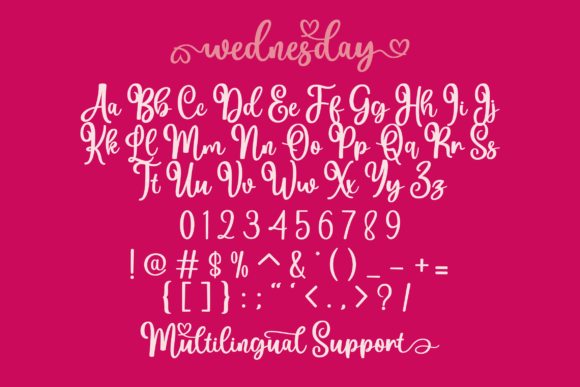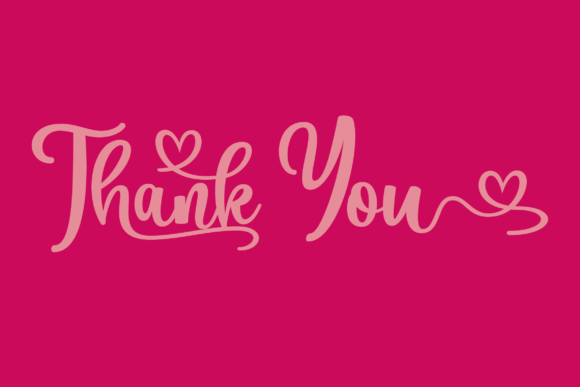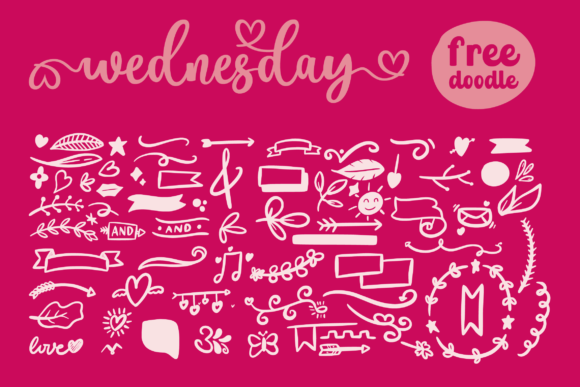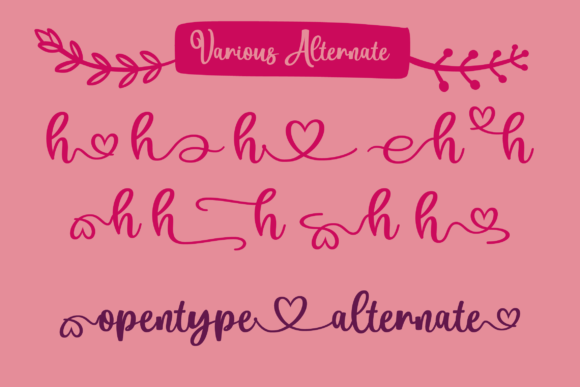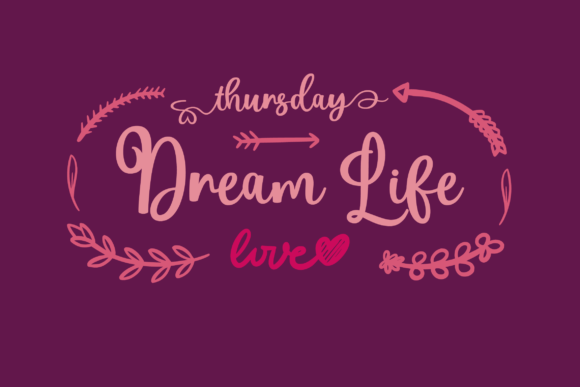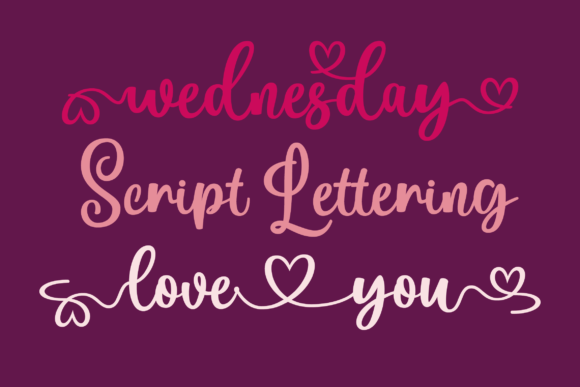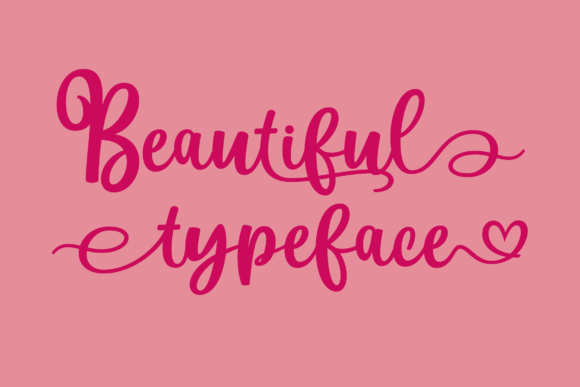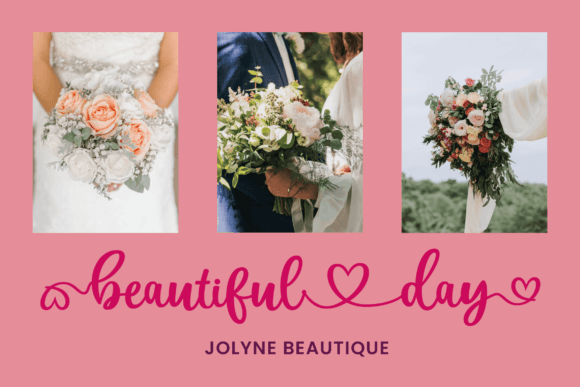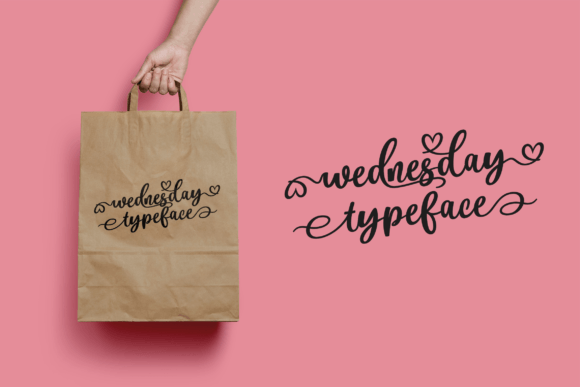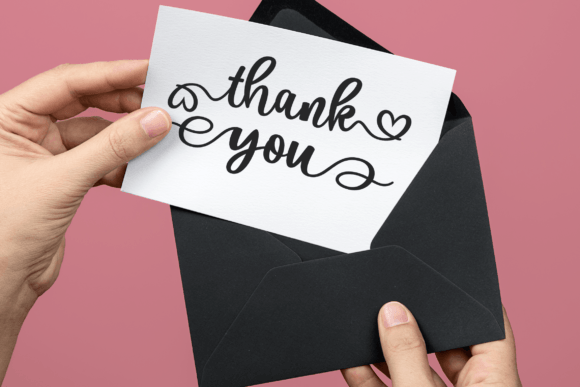
Wednesday Font
Introducing Wednesday, a fabulously fun yet elegant script font that exudes tons of energy, enabling you to effortlessly create beautiful hand-made typography. With extra bouncy curves and loops, Wednesday is designed to make your text stand out, making it perfect for logos, printed quotes, invitations, cards, product packaging, headers, and anything your creative imagination holds.
Wednesday brings a delightful combination of playfulness and elegance, making it a versatile choice for a wide range of design projects. The extra bouncy curves and loops add a dynamic and lively quality to the font, ensuring that your text captures attention and conveys a sense of fun.
The font’s energy and unique design make it particularly suitable for creating eye-catching logos. Its vibrant and expressive nature allows your brand identity to stand out with a distinctive and memorable style.
Printed quotes and invitations come to life with Wednesday, as the font injects a sense of personality and flair into your text. The elegant yet playful script adds a touch of sophistication, making your designs visually appealing.
Product packaging benefits from Wednesday’s energetic and standout qualities. Whether used for headers, labels, or branding elements, the font contributes to a vibrant and engaging aesthetic.
The PUA encoding of Wednesday is a valuable feature, allowing easy access to a variety of glyphs and swashes. This enhances your design flexibility, making it convenient to incorporate different decorative elements effortlessly.
In conclusion, Wednesday is not just a font; it’s a creative tool that infuses your projects with a perfect blend of fun and elegance. Whether you’re working on professional branding or personal invitations, Wednesday invites you to unleash your creativity and make your text come alive with its dynamic and lively script. Access all the glyphs and swashes with ease and let Wednesday elevate your designs with its fabulously fun and energetic vibe!